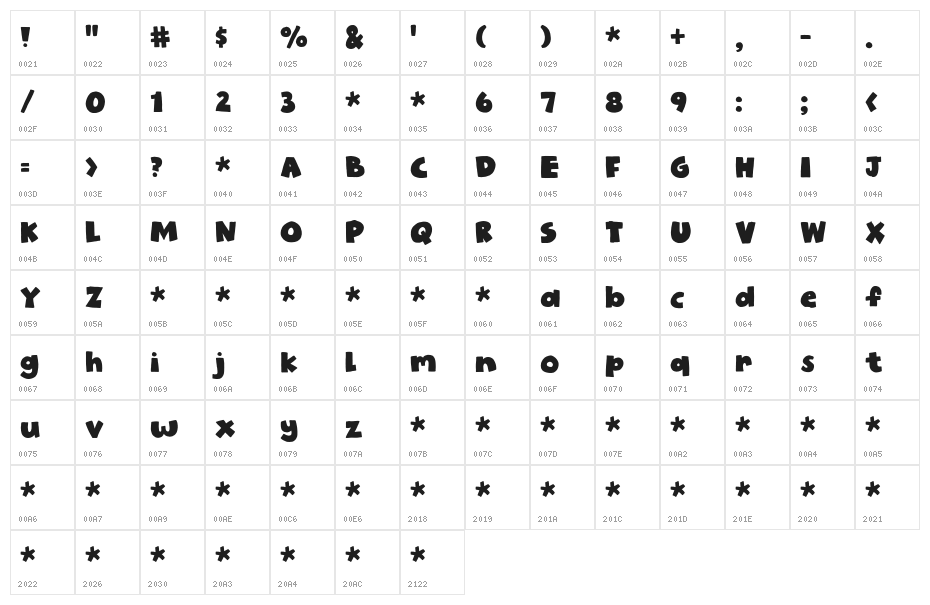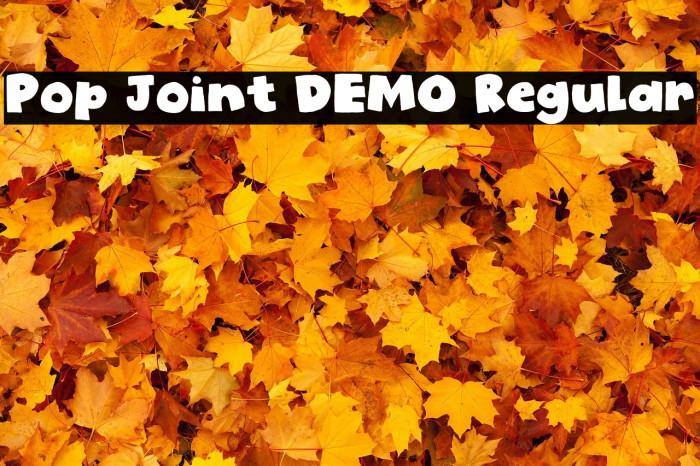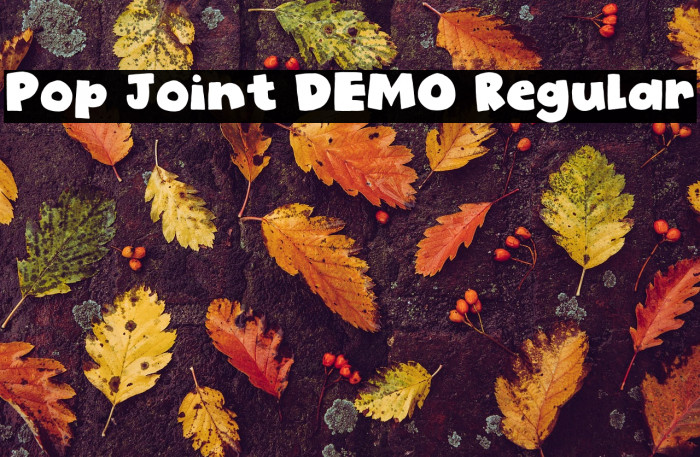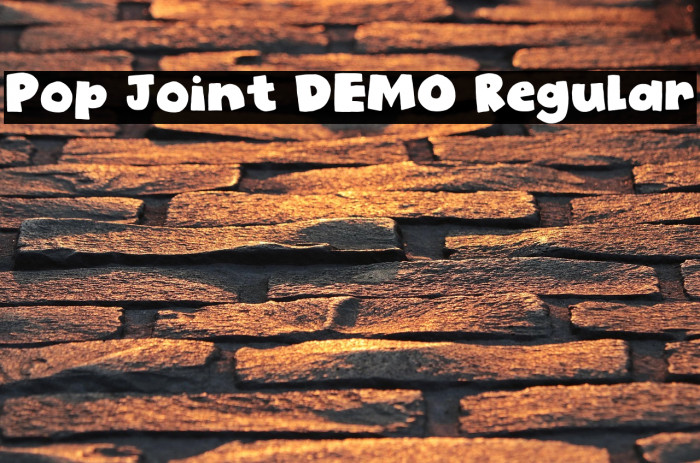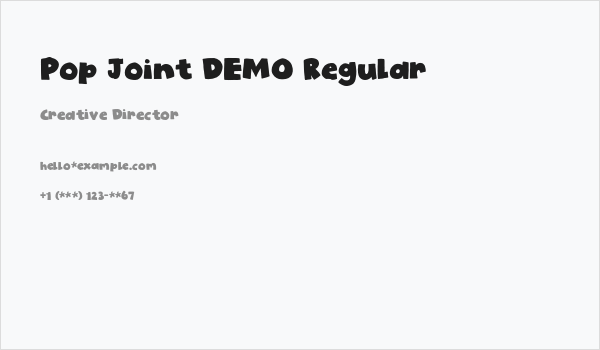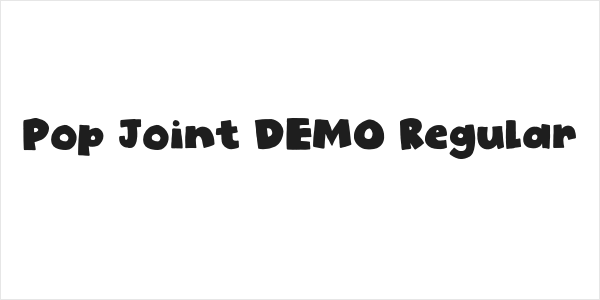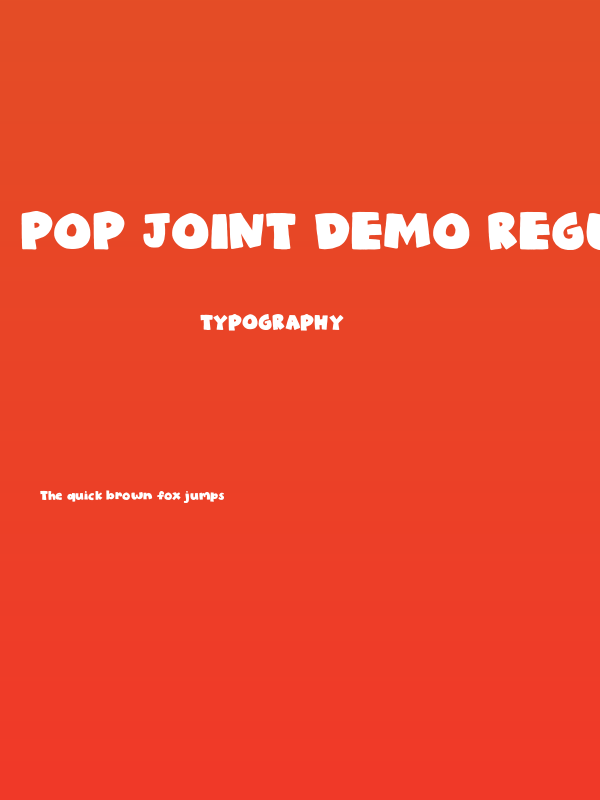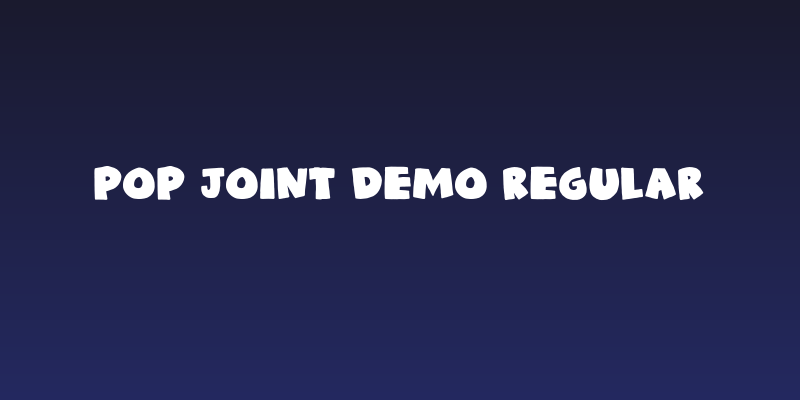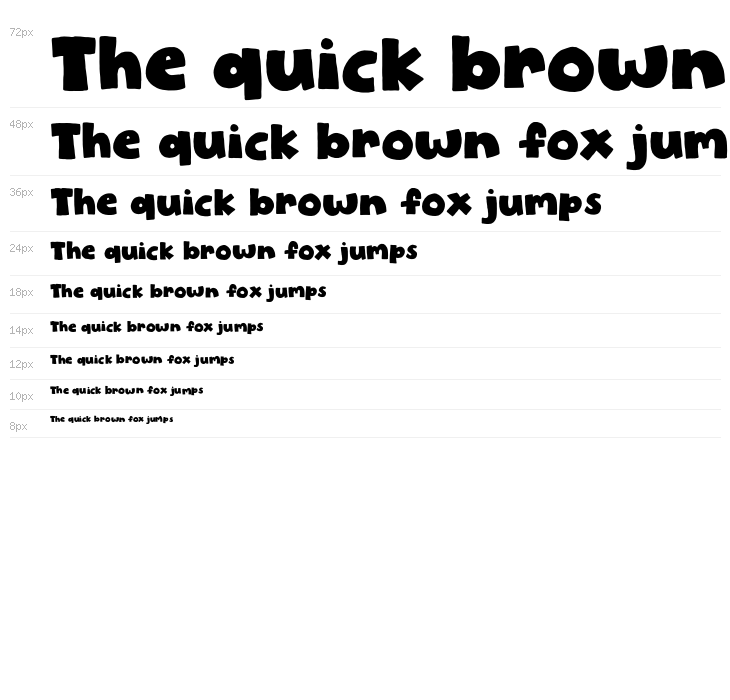
Pop Joint DEMO Regular Font
Pop Joint DEMO Regular Description
This font features a playful and bold design with exaggerated, rounded shapes that give it a lively and energetic appearance. The characters are thick and slightly irregular, adding a whimsical touch. The uppercase and lowercase letters maintain a consistent style, with wide, rounded forms that create a sense of fun and movement. The numbers and special characters follow the same playful aesthetic, making them suitable for creative and informal applications. Overall, the font exudes a sense of joy and spontaneity, making it ideal for projects that require a touch of humor and personality.